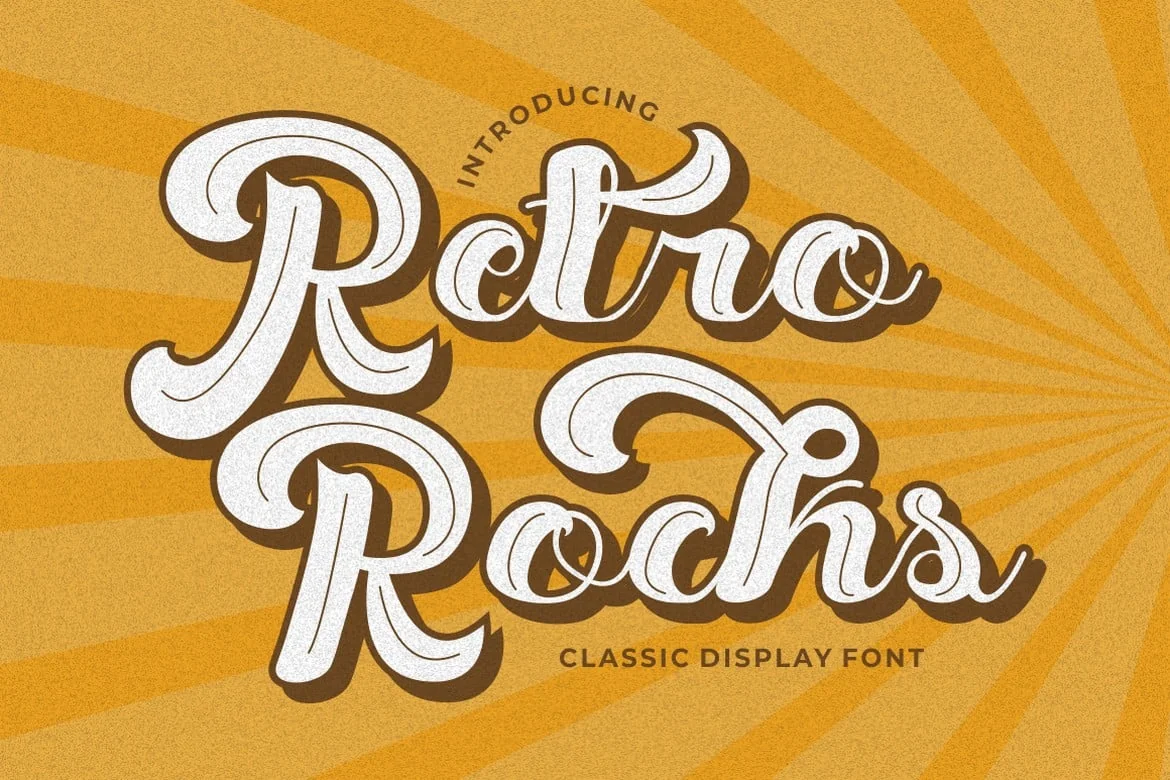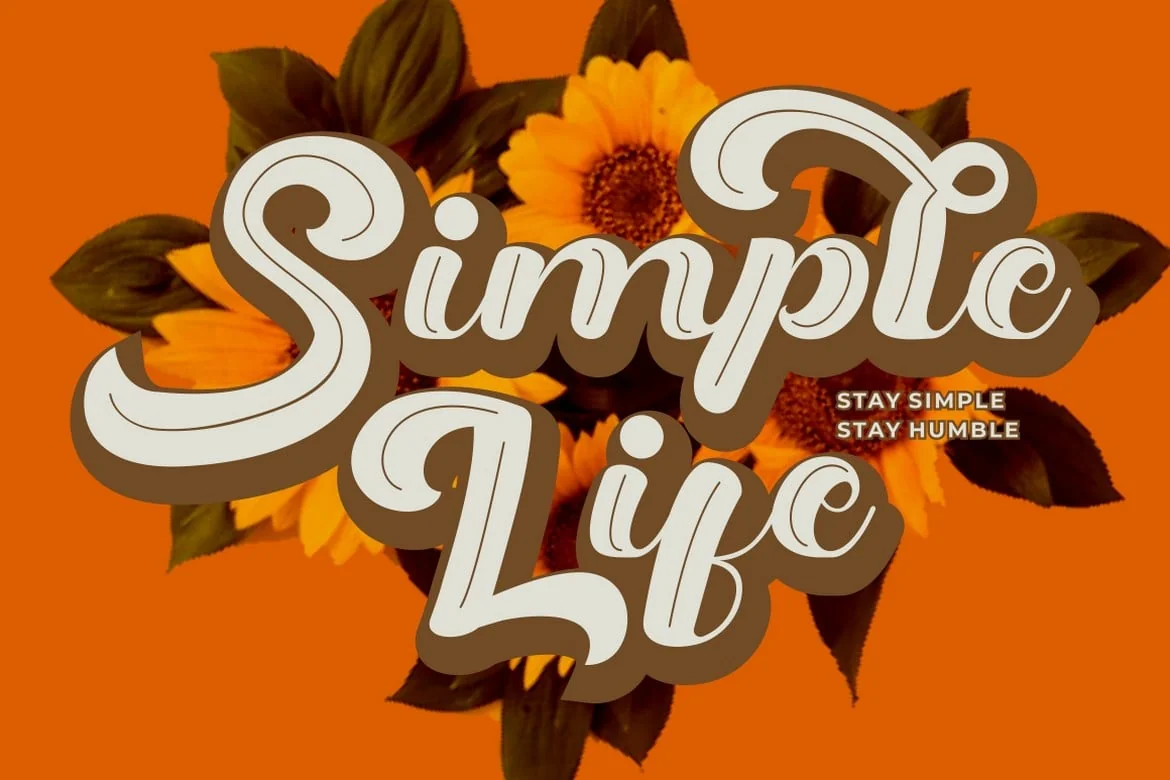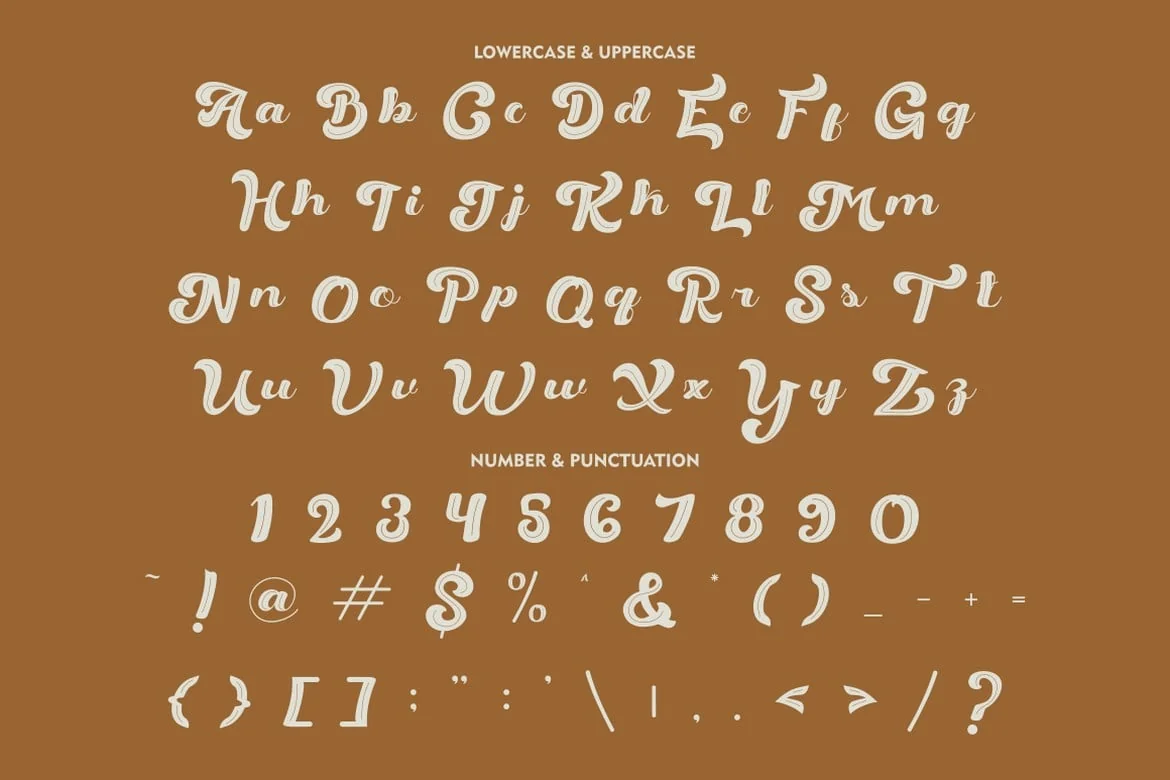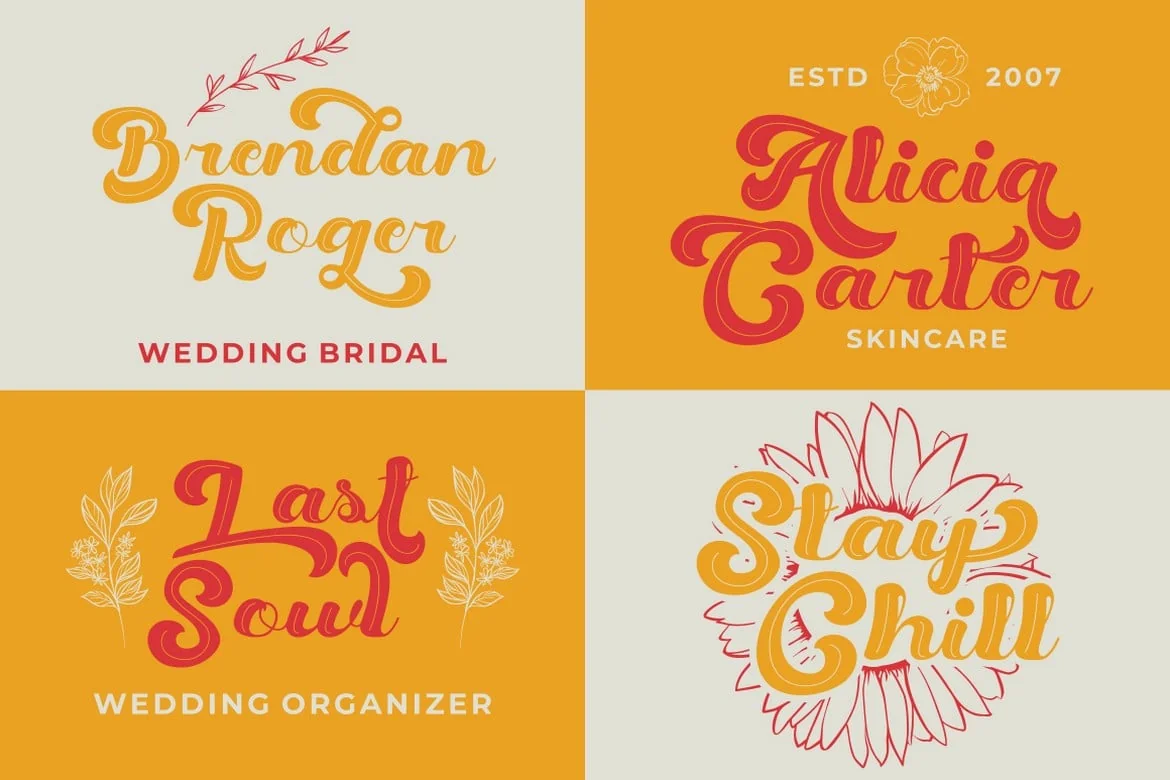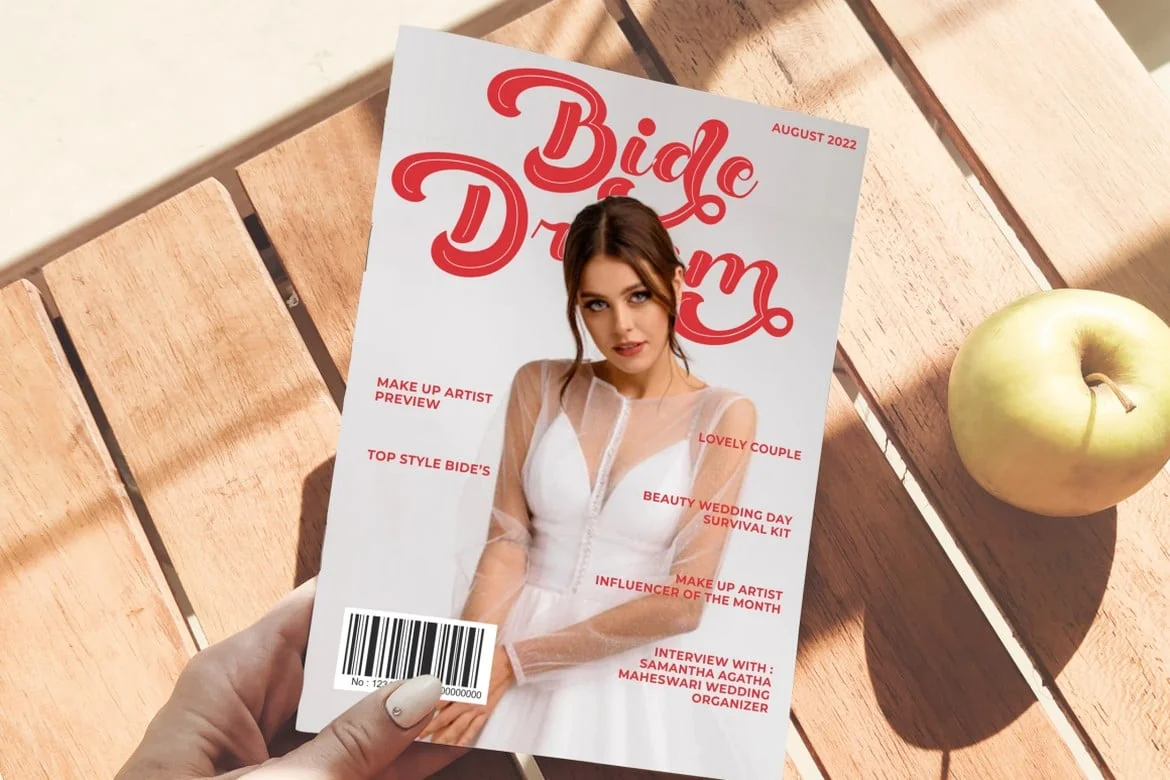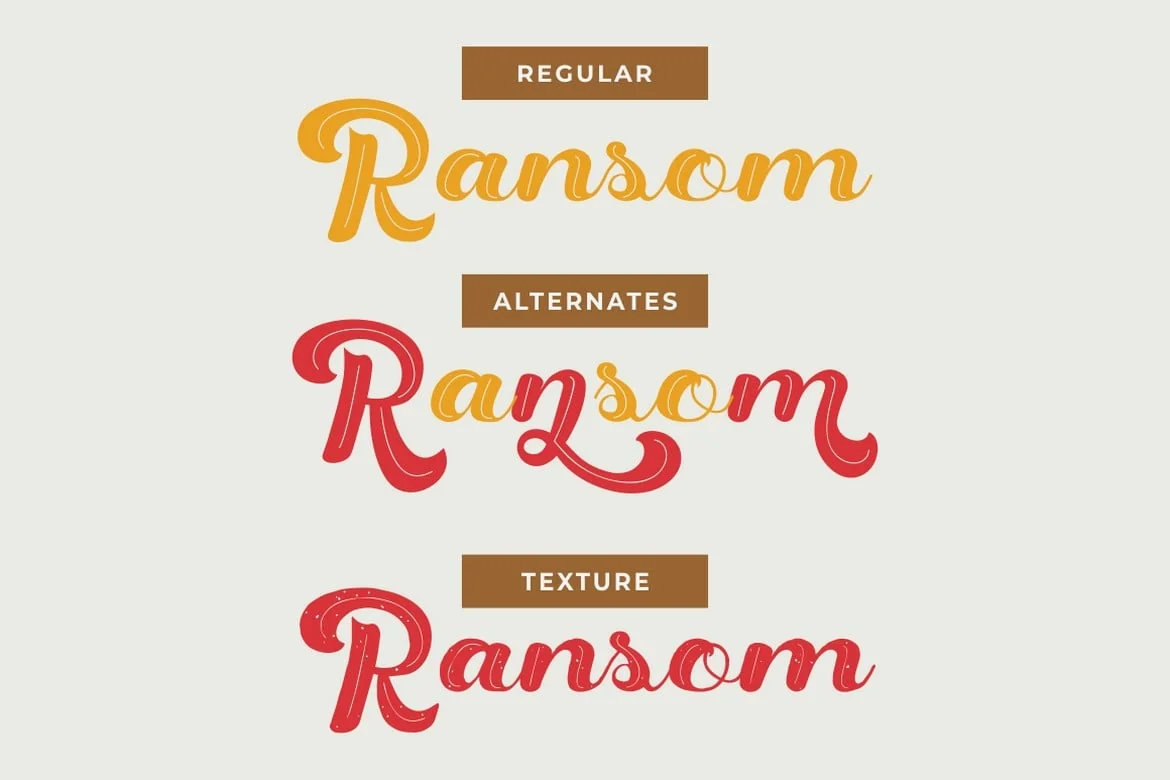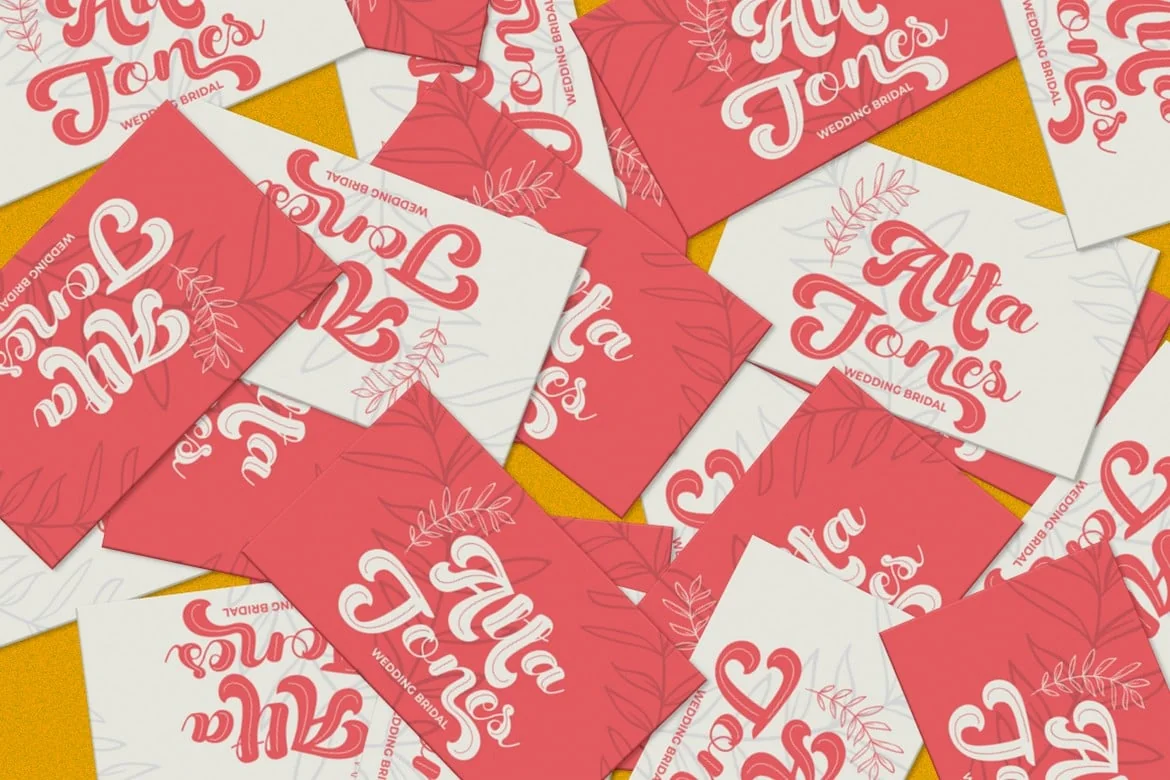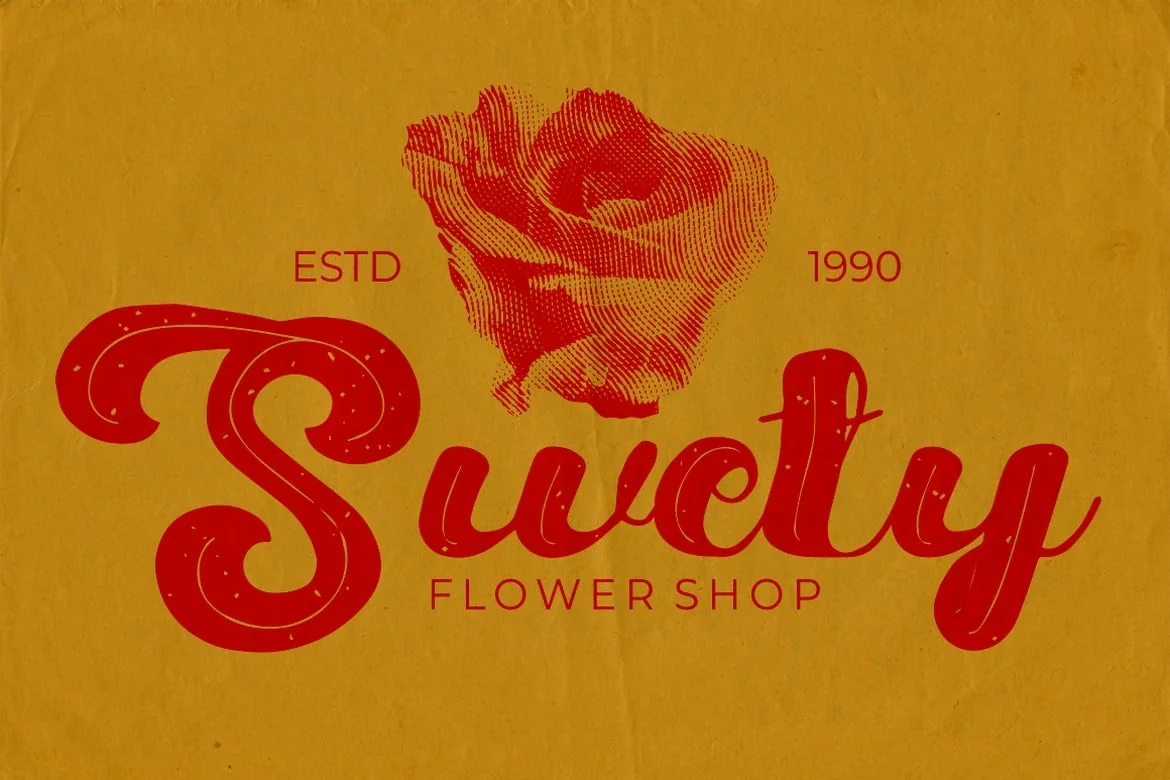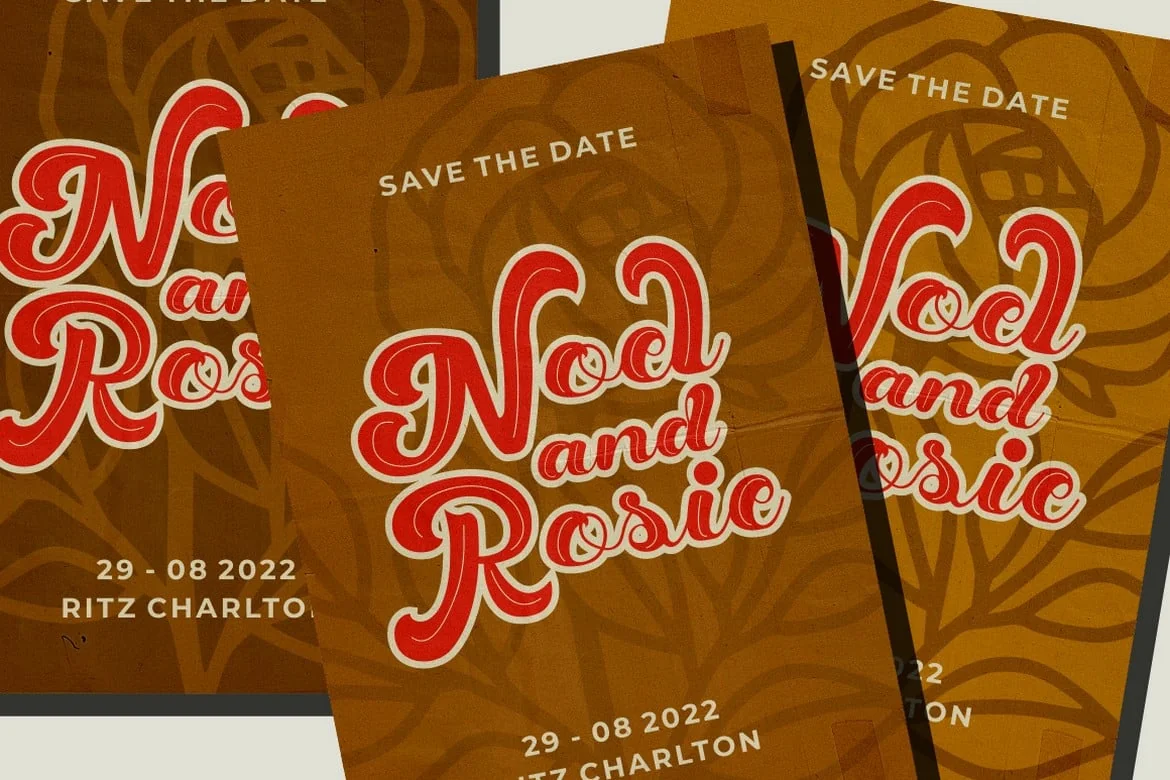
Retro Rocks – Bold Retro Script Font
Retro Rock – Classic Display Font. Retro Rock font makes for more fun, trendy and more lively. Retro Rock is inspired by the classic style and well display curves. Retro Rock has a surprise from alternate that will make your work even more beautiful.
Retro Rock is perfect for a professional touch which makes it even more unique display and classic themes. But Retro Rock is also suitable for logos, branding, greeting cards, invitation cards, advertisements, titles, headlines, book titles, stickers, packaging, quotes, posters, billboards and others.